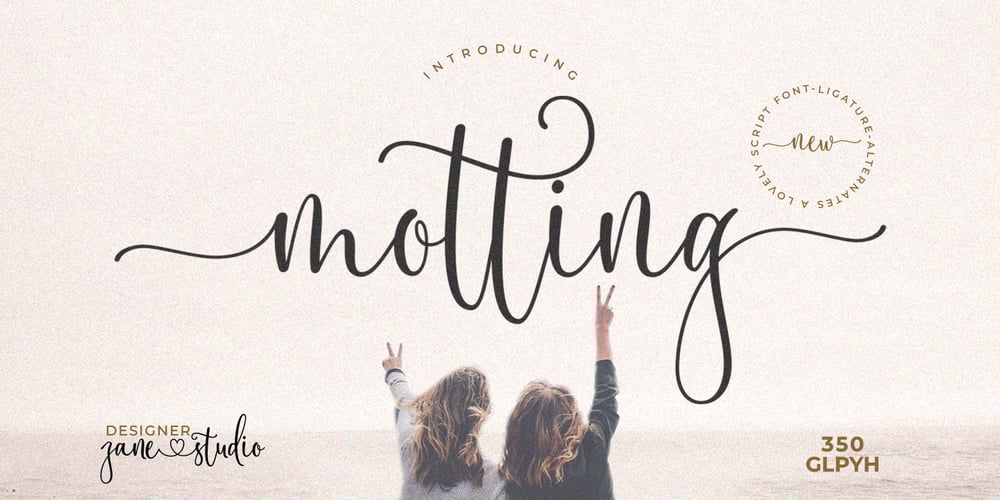
Motting Font Family was designed by Mur Zani and published by Zane Studio. Motting contains 1 styles and family package options. INTRODUCE !Motting script – a new modern calligraphy font, fresh, cute, eye-catching, with a joyful heart. Great for greeting cards, branding materials, business cards, quotes, posters and more!Motting script too – includes lots of alternate characters. Encoded with Unicode PUA, which allows full access to all additional characters without any special design software. Mac users can use Font Book. Windows users can use the Character Map to view and copy one of the additional characters to paste into your favorite text editor.For people with opentype-enabled software: Alternate can be accessed by turning on the “Alternate Styles” and “Ligature” buttons on Photoshop’s Character panel, or through any software with a glyph panel, e.g. Adobe Illustrator, Photoshop CC, Inkscape.Files include:- Motting script. OTF- Motting script. TTFThank you for buying!